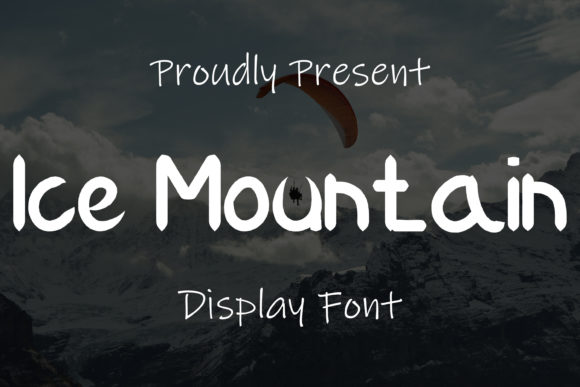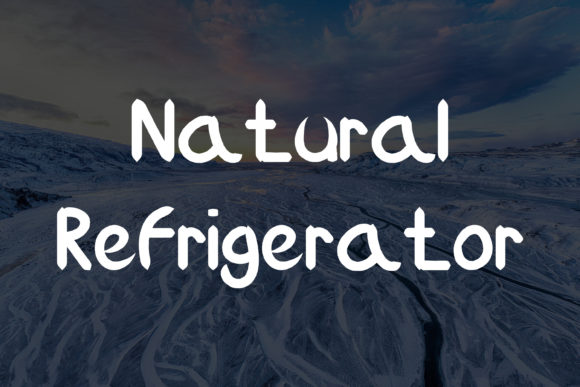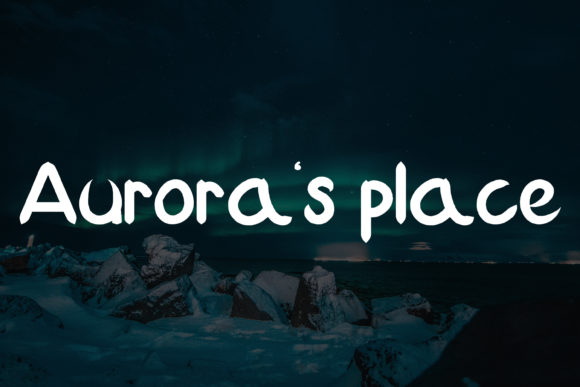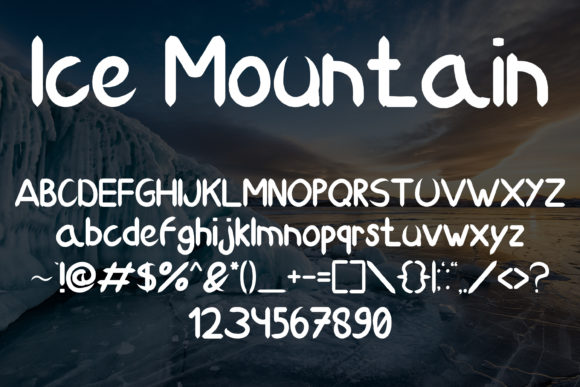
About Ice Mountain Font
Ice Mountain is a simple and neat brushed handwritten font that offers versatility and adaptability for a wide range of design projects. With its clean and legible appearance, this font can enhance any creation and become a valuable asset in your font library.
The simplicity of Ice Mountain adds a touch of elegance and clarity to your designs. The clean brush strokes create a sleek and modern look, making it suitable for various topics and themes. Whether you’re working on branding materials, logos, social media graphics, or any other project, Ice Mountain can bring a sense of professionalism and sophistication.
The adaptability of Ice Mountain allows it to seamlessly integrate into different design styles. Its versatility makes it a suitable choice for both digital and print applications. From websites and digital presentations to packaging and merchandise, Ice Mountain can elevate the visual appeal of your designs and captivate your audience.
The neat and legible nature of Ice Mountain ensures readability even at smaller sizes. This makes it ideal for body text, captions, and other instances where clarity is essential. The consistent letterforms and balanced spacing contribute to a harmonious overall appearance, enhancing the overall visual experience.
Ice Mountain is designed to be user-friendly and easy to work with. It can be paired with other fonts to create interesting typographic combinations or used on its own as a standalone typeface. Its adaptable nature allows you to explore different design possibilities and experiment with layouts and compositions.
In summary, Ice Mountain is a simple, neat, and adaptable brushed handwritten font that can elevate any creation. Its versatility, legibility, and clean appearance make it a valuable asset for a wide range of design projects. Incorporate Ice Mountain into your designs and enjoy its ability to bring a sense of elegance and clarity to your work.